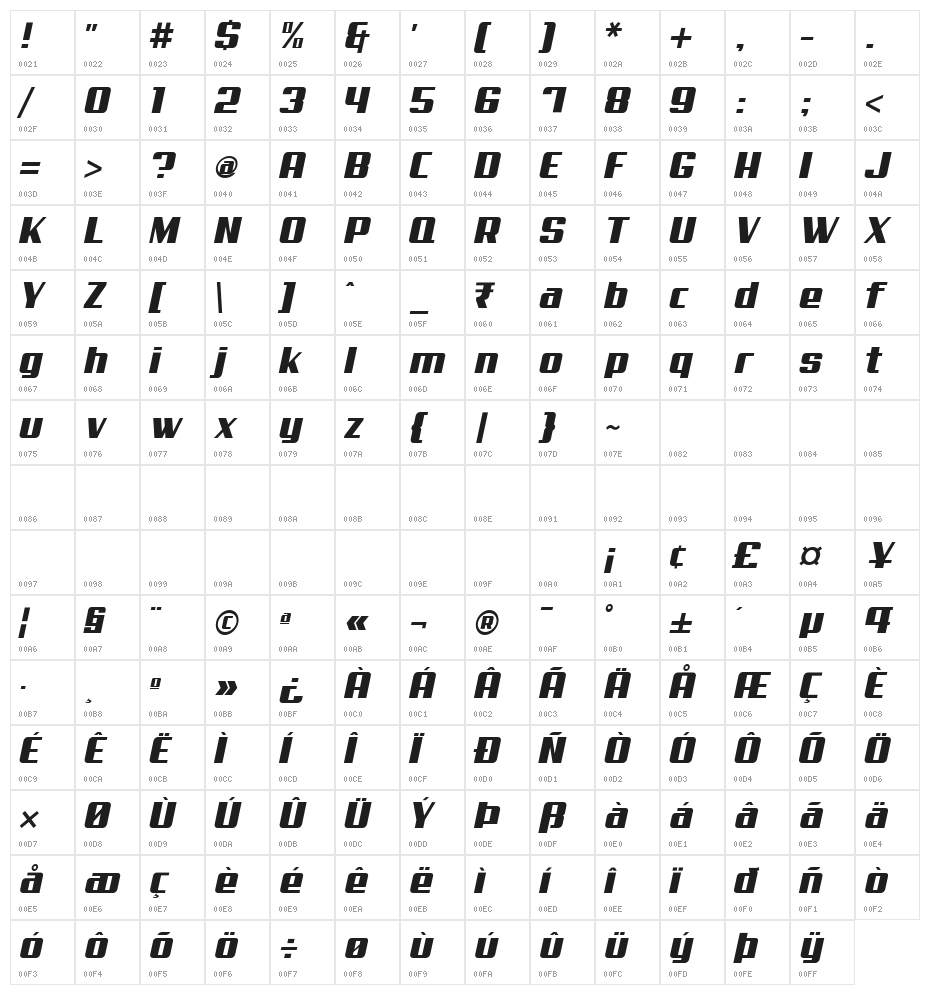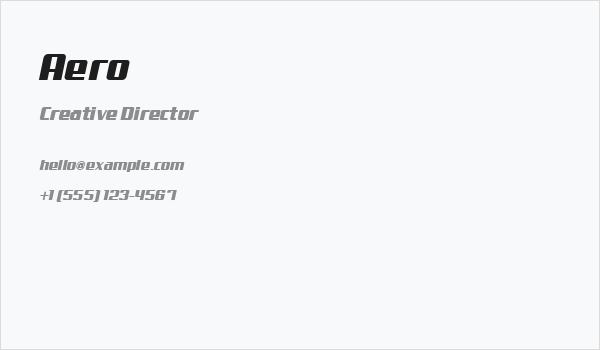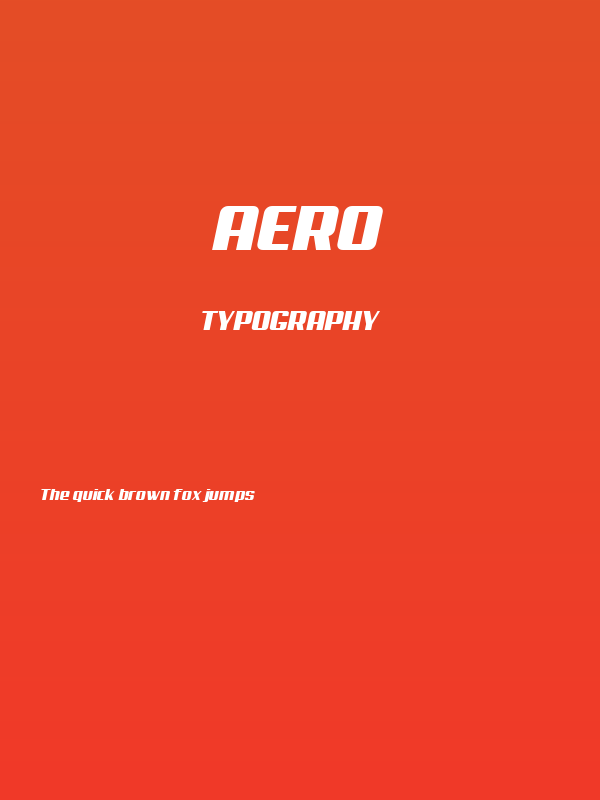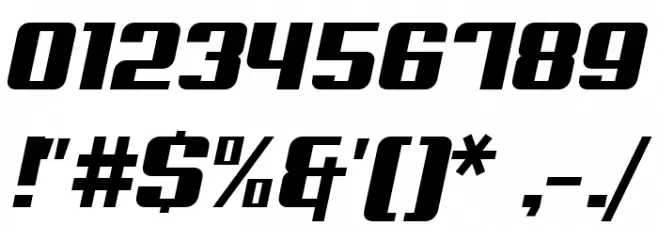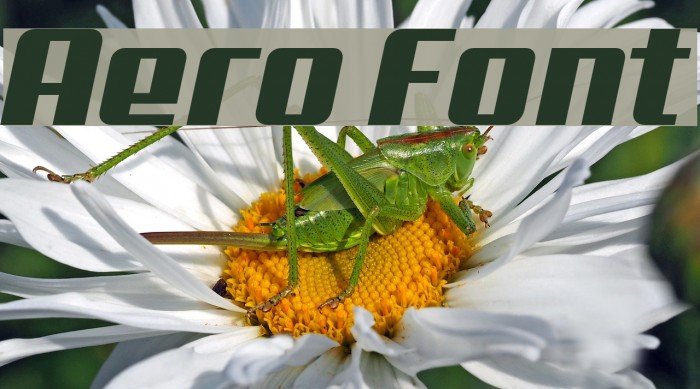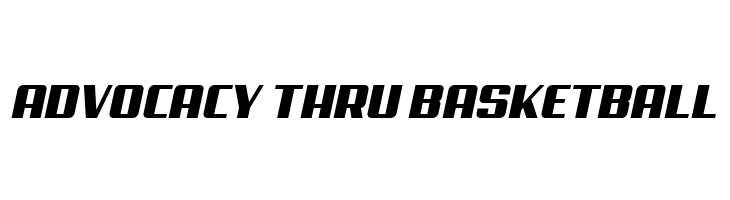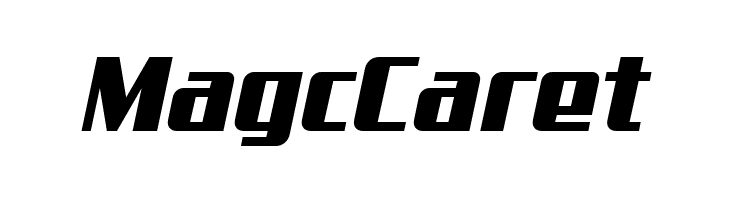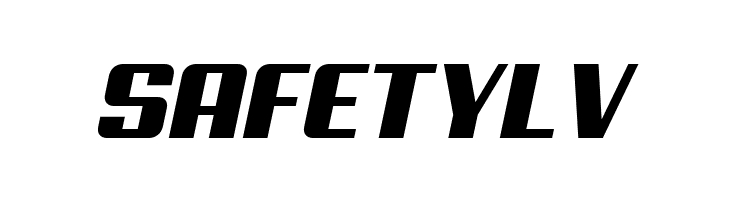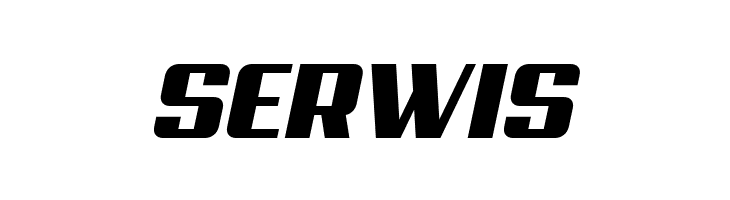
Aero Font
Aero Description
This font features a bold, italicized style with a modern and dynamic appearance. The characters are slightly slanted, giving a sense of motion and energy. The strokes are thick and consistent, providing a strong visual impact. The uppercase and lowercase letters maintain a uniform width, while the numerals and special characters complement the overall design. This font is well-suited for projects that require a bold statement, such as sports branding, automotive designs, or dynamic advertising. The character spacing is tight, enhancing the compact and impactful look.
| Proposed Projects | Ideal for sports branding, automotive designs, and dynamic advertising. |